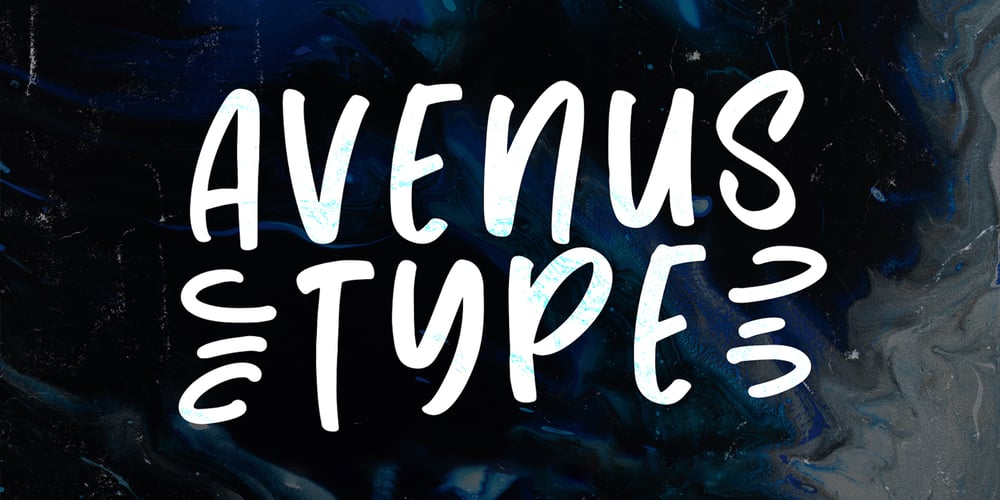
Avenus Type
Avenus Type font
Avenus Type Font Family was designed by Virgiawan Listanto and published by Stringlabs Creative Studio. Avenus Type contains 1 styles and family package options. Avenus Type is a cute and quirky display font. Its friendly feel makes this font incredibly versatile, fitting a wide range of contexts. Add it to your creative ideas and notice how it makes them stand out!